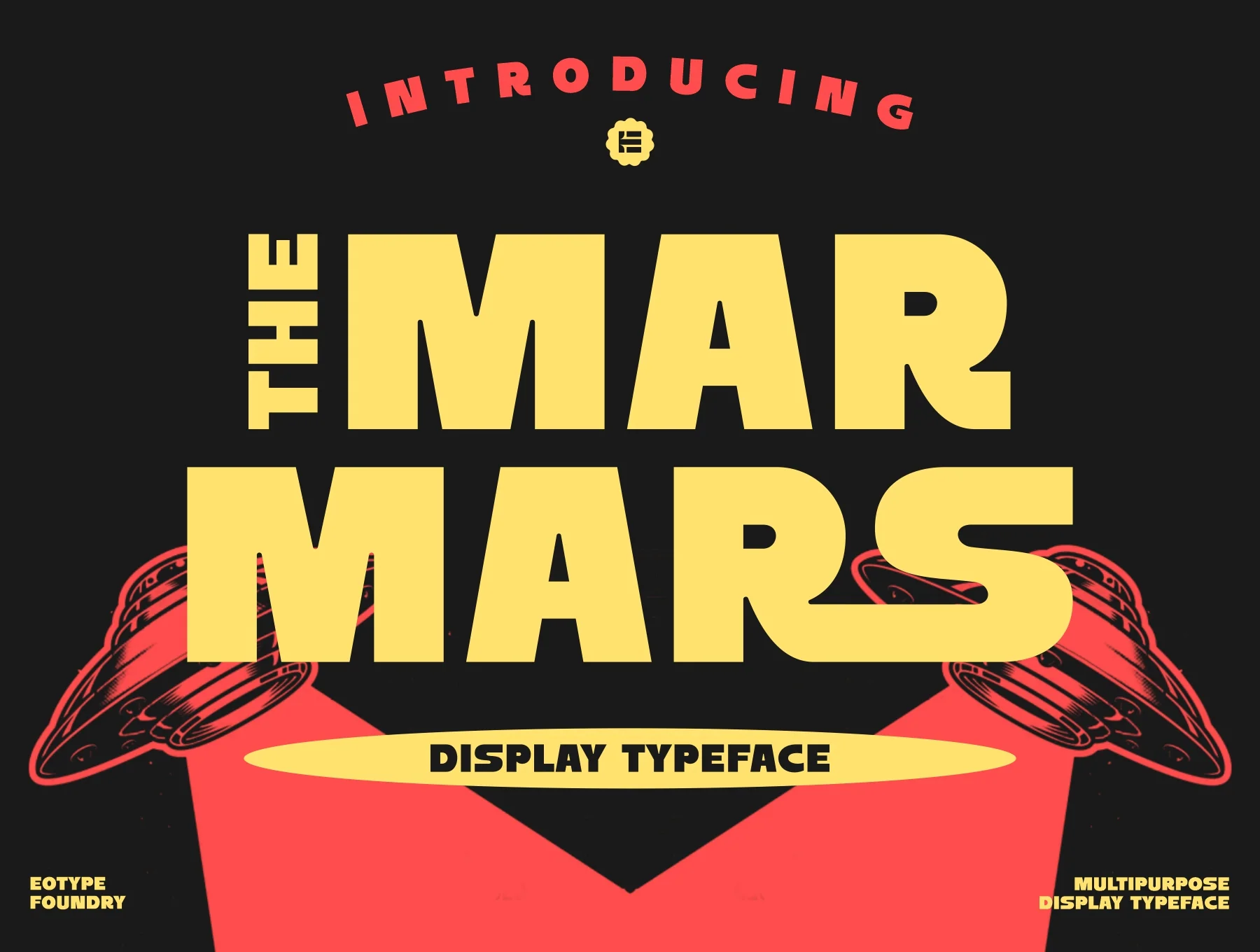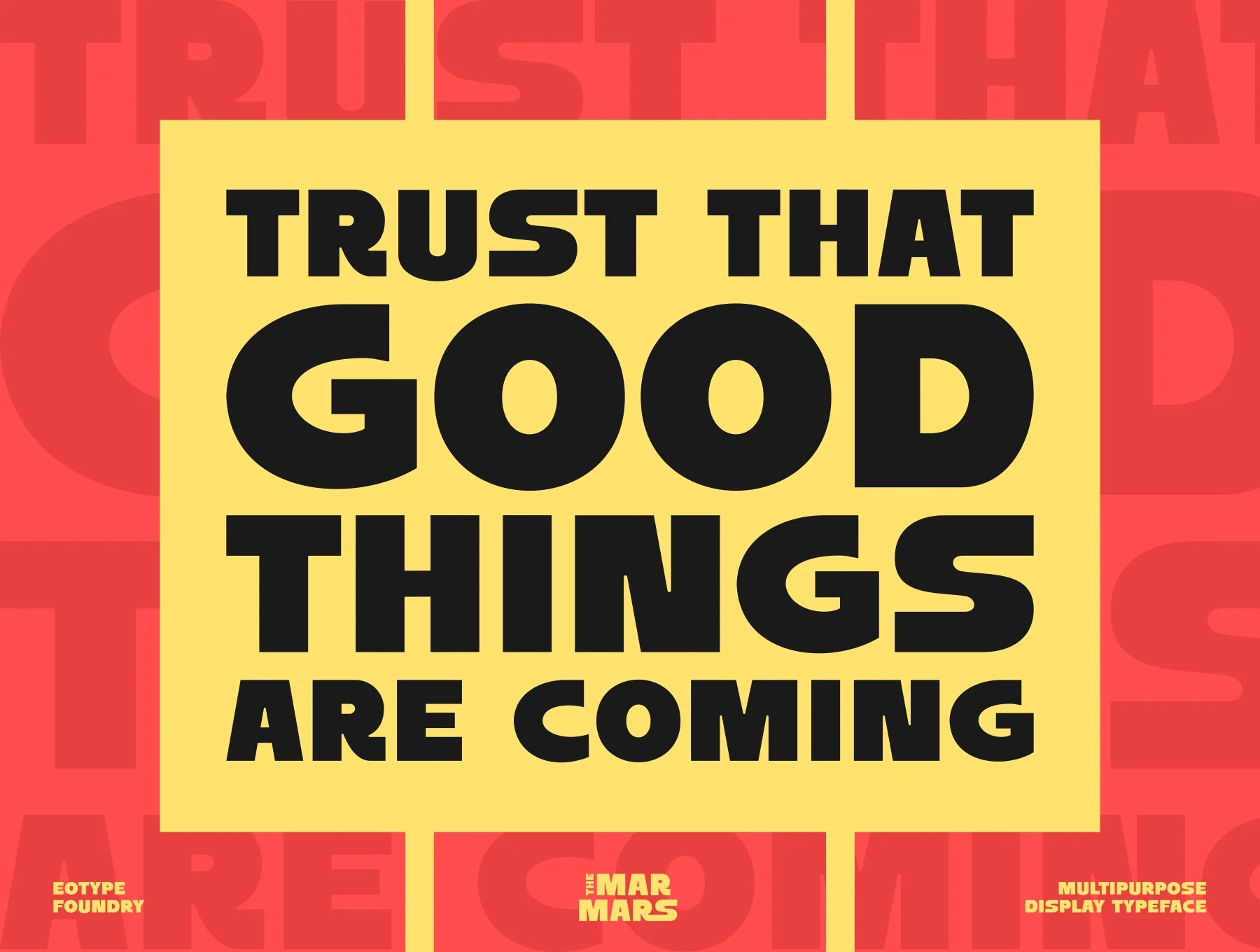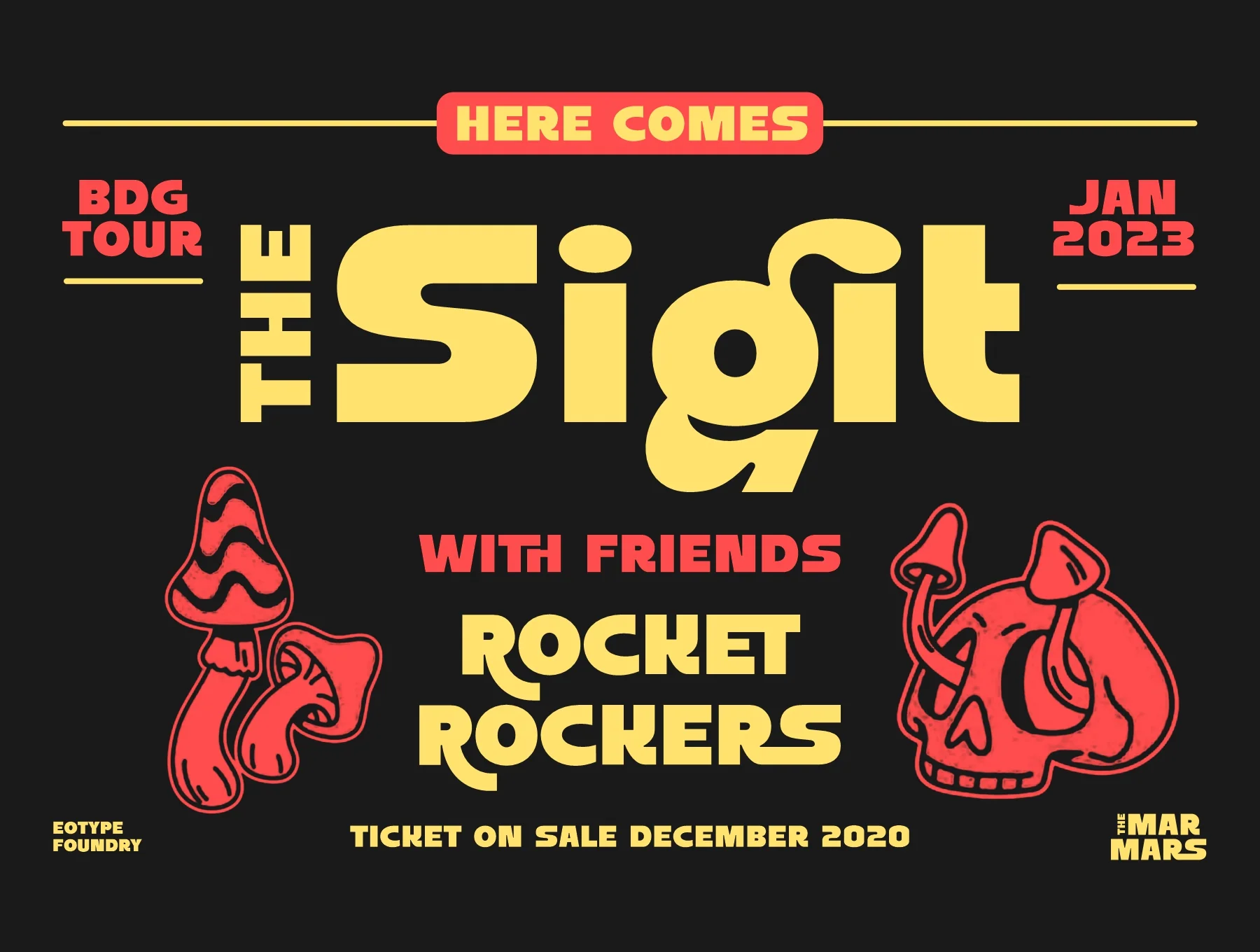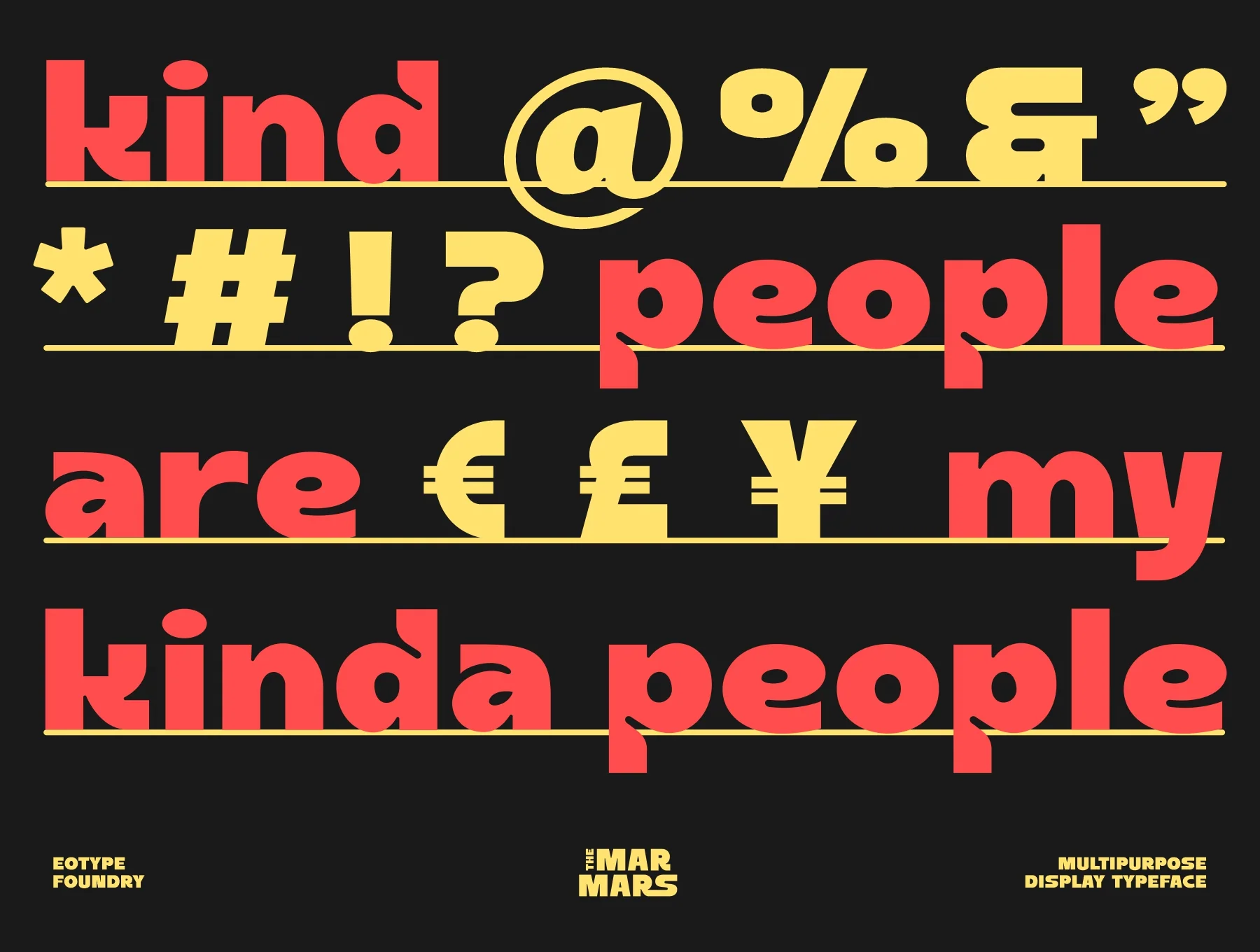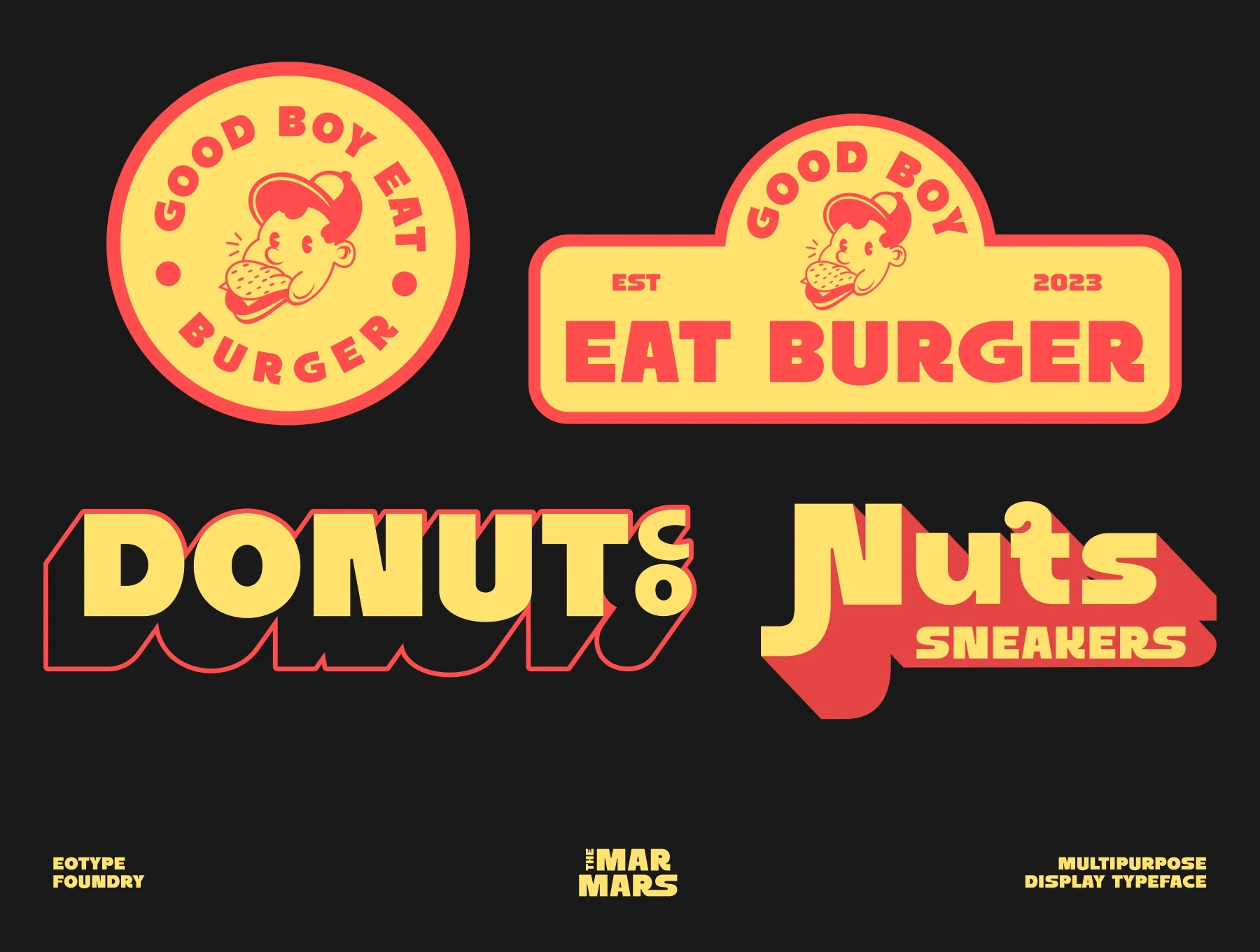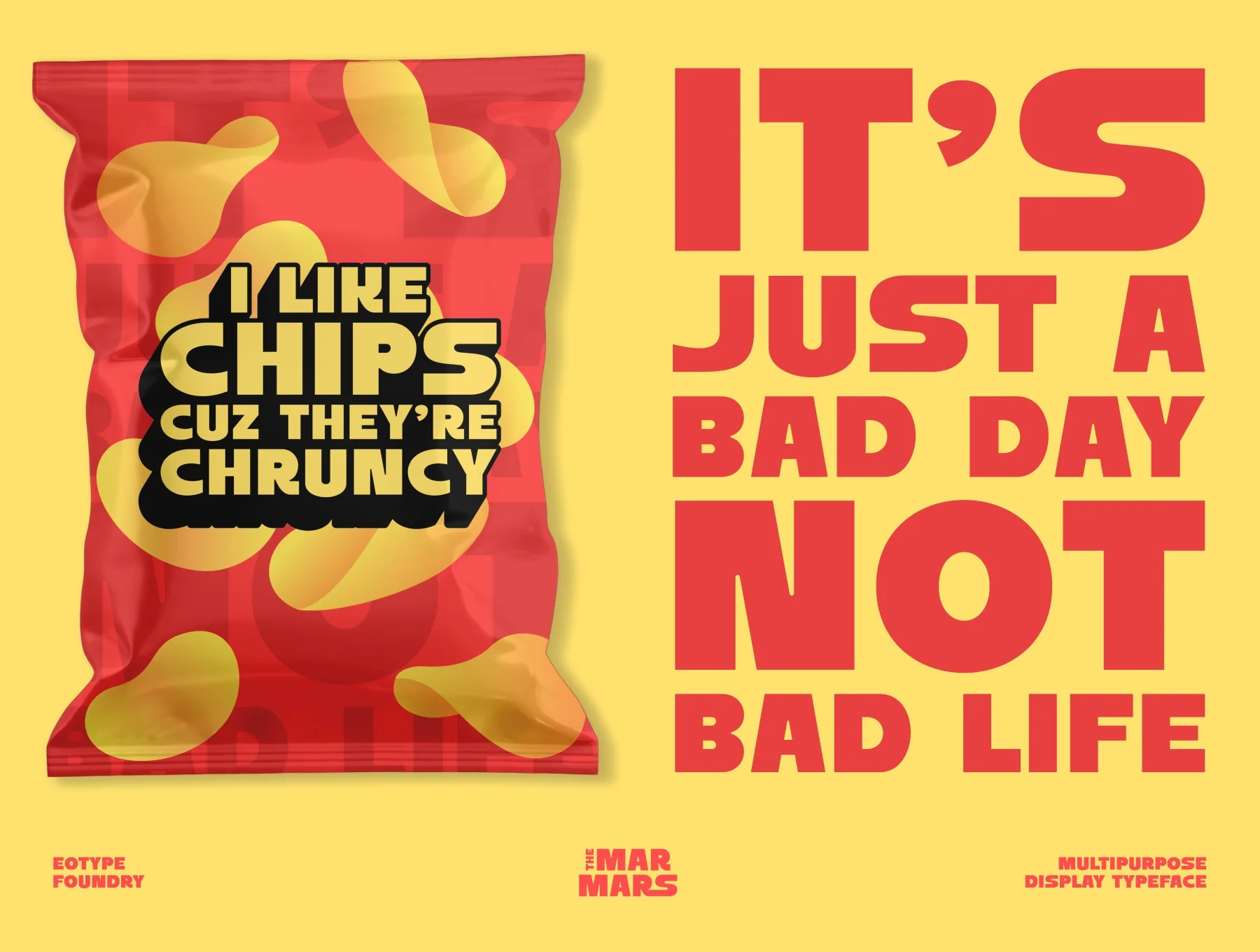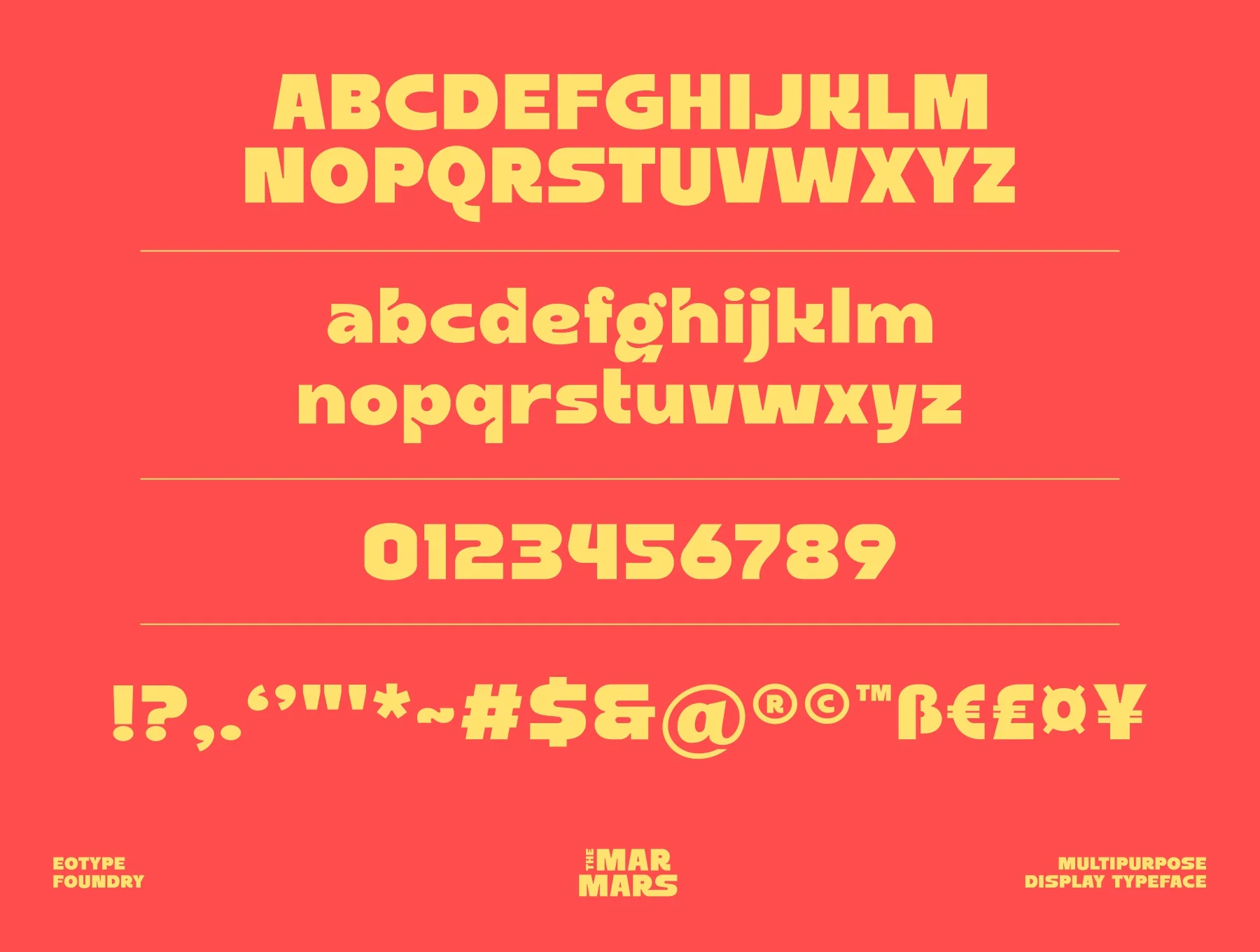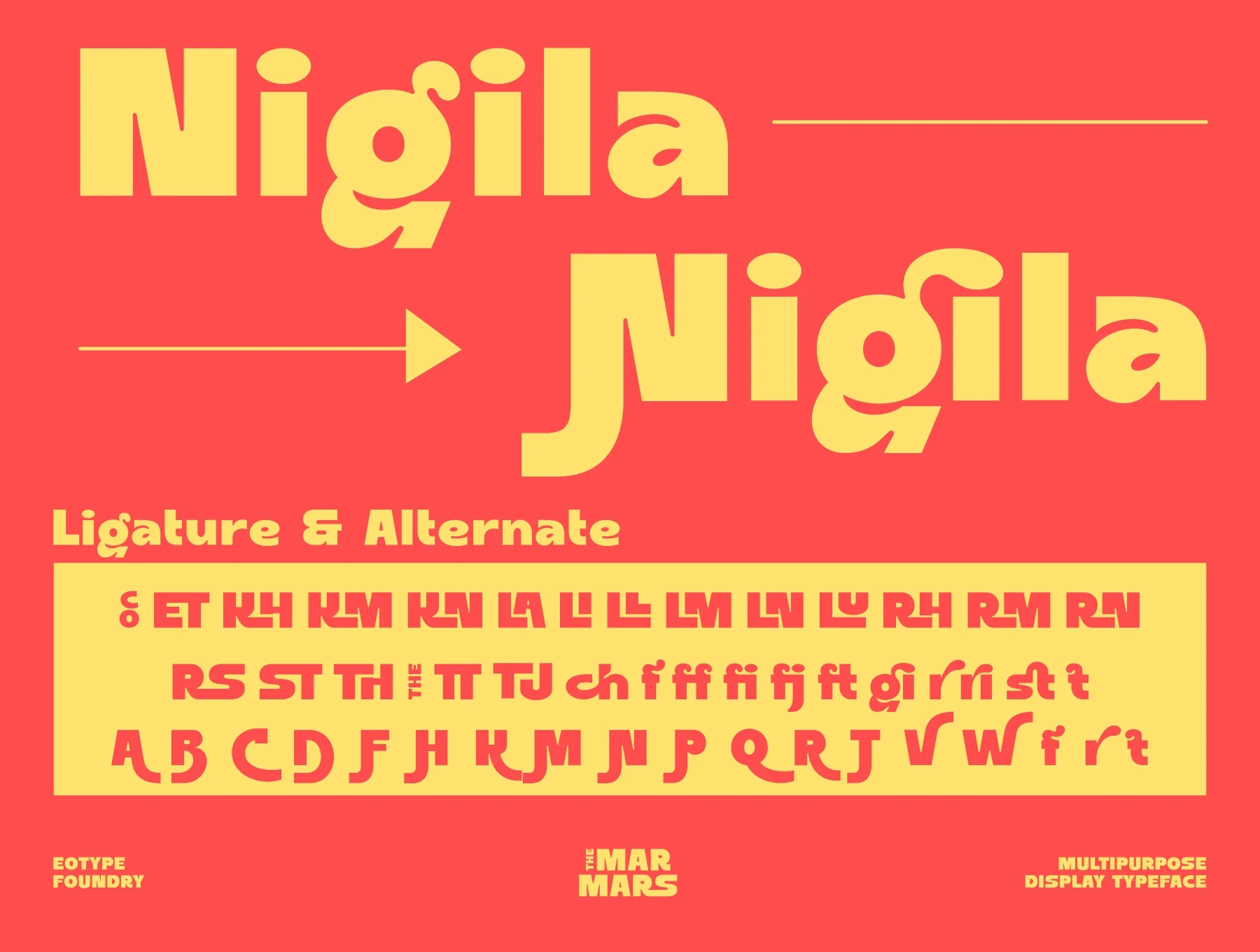
The Marmars - Display Typeface
Marmars
Default glyph
Numbers and punctuation
Normal style
Alternate styles and ligatures
Marmars is a bold display typeface with a fun, approachable feel. It adds personality to retro, vintage, and urban-themed designs. Including alternate styles and ligatures, this font works well for logos, packaging labels, posters, and a wide range of creative projects.